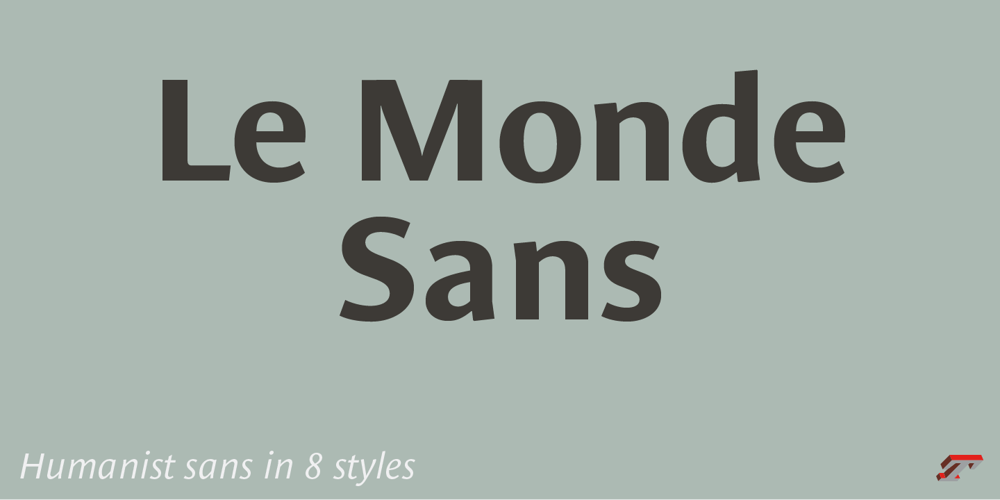
Le Monde Sans Std Font Family was designed by Jean François Porchez and published by Typofonderie. Le Monde Sans Std contains 8 styles and family package options. Humanist sans in 8 stylesDesigned by Jean François Porchez, Le Monde Sans is a sanserif based on Le Monde Journal — a practice that become commonplace from early nineties. Designed originally in 1994 for the Le Monde newspapers, it was expended over the years to the large family we know today. Le Monde Sans features a “traditional g” in addition to the usual 1994’s g. Le Monde Sans is offered in numerous weights — in roman, italic to meet all kinds of situations. It will help designers to select the best weights depending their needs, from glossy paper printing to high resolution screen.SuperfamilyThe design of Le Monde Sans continues the basic common structure found in the members of the Le Monde family: its proportions, a relatively narrow width, a fairly oblique axis, etc. The typographer can, at all times, switch between Sans & Journal or Courrier without any disruption in the composition. The verticals metrics and proportions of Le Monde Sans are calibrated to match perfectly others Typofonderie families. This family was designed in 1994 as bespoke typeface family for the French newspaper Le Monde. The family is not used any more by this newspaper from November 2005.Type Directors Club .44 1998European Design Awards 1998